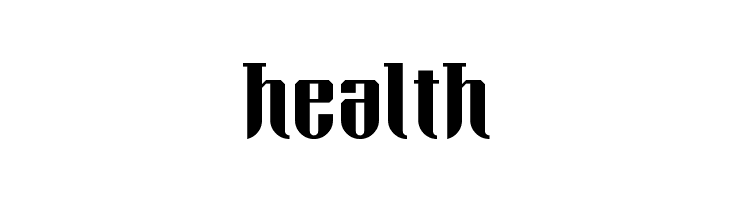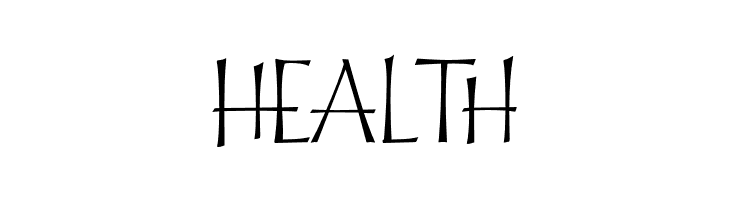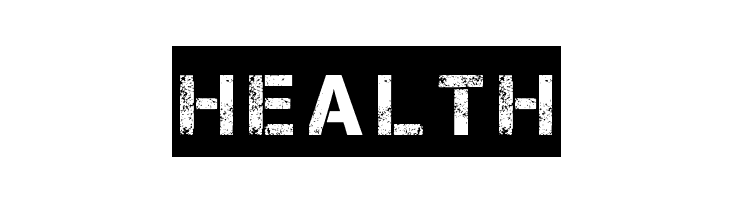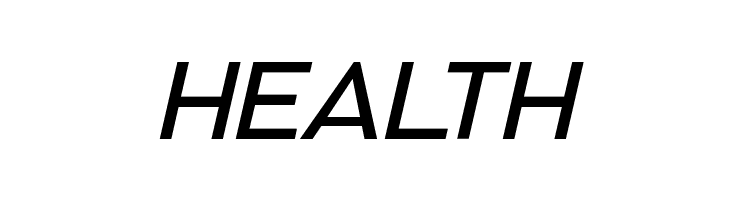
A dynamic serif typeface with a blend of traditional elegance and modern style.
A modern, geometric sans-serif font with clean lines and balanced spacing.
A bold, impactful font with strong, consistent strokes and dynamic character design.
A tall, elegant font with slender letterforms and subtle curves, perfect for creative projects.
A bold, distressed stencil font with a rugged, industrial style.
A modern, geometric sans-serif font with clean lines and uniform strokes.
A modern, italicized font with medium contrast and sleek design.
A bold, geometric font with a modern, futuristic style.